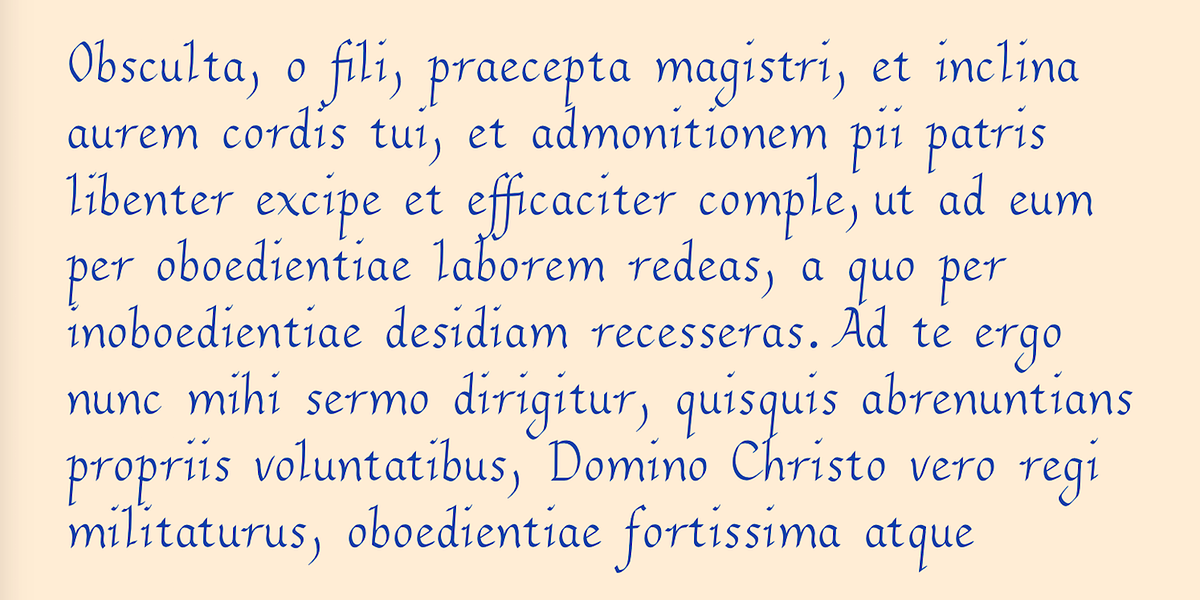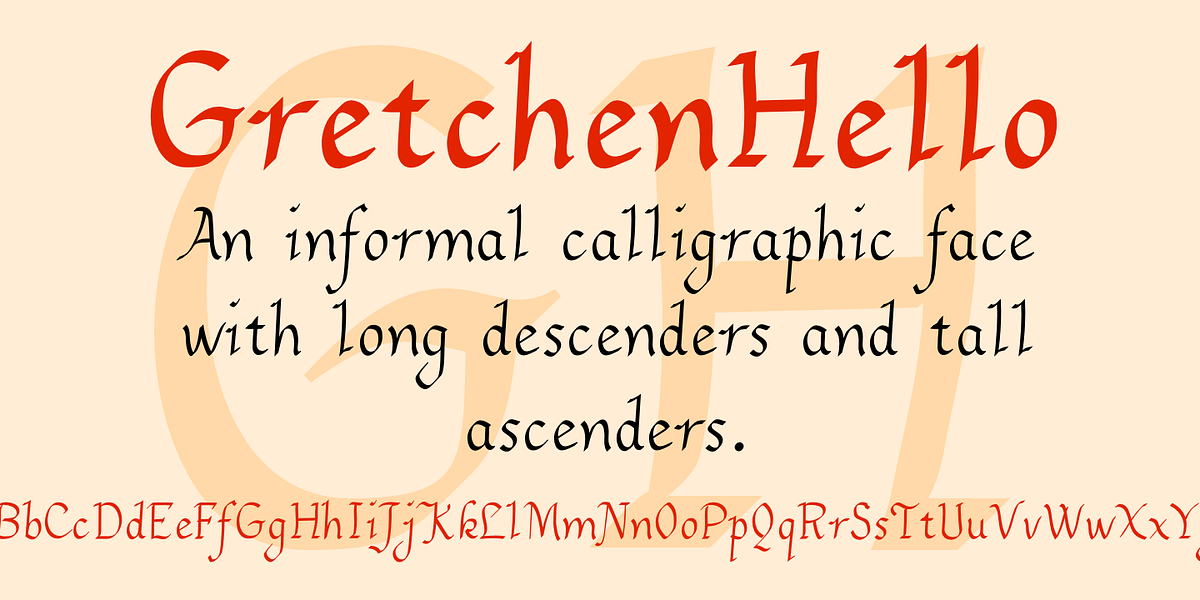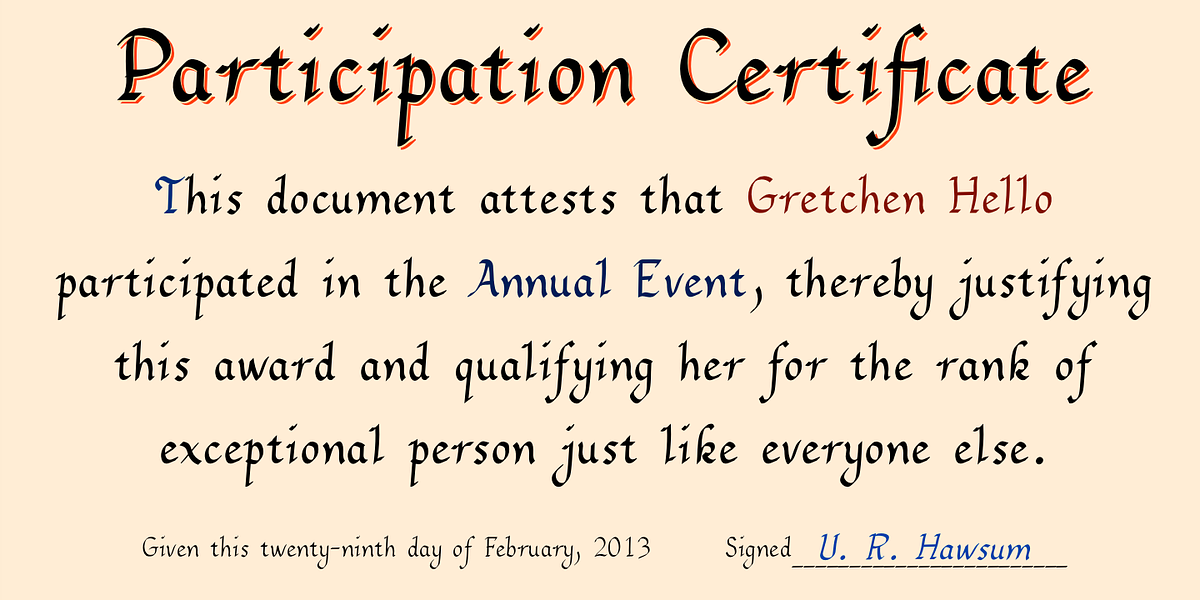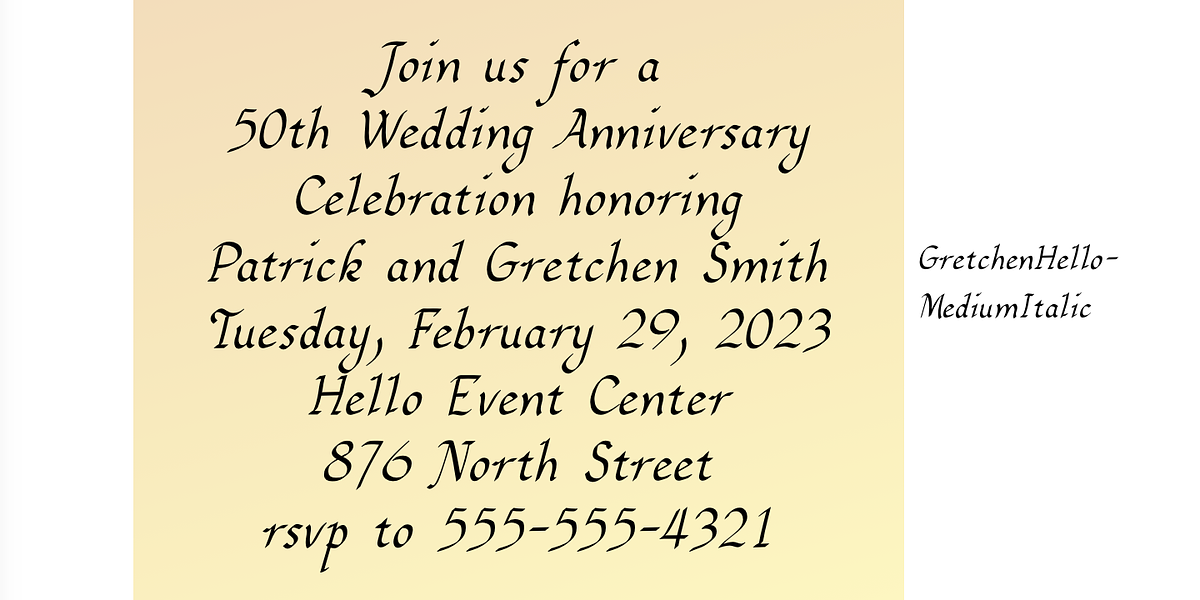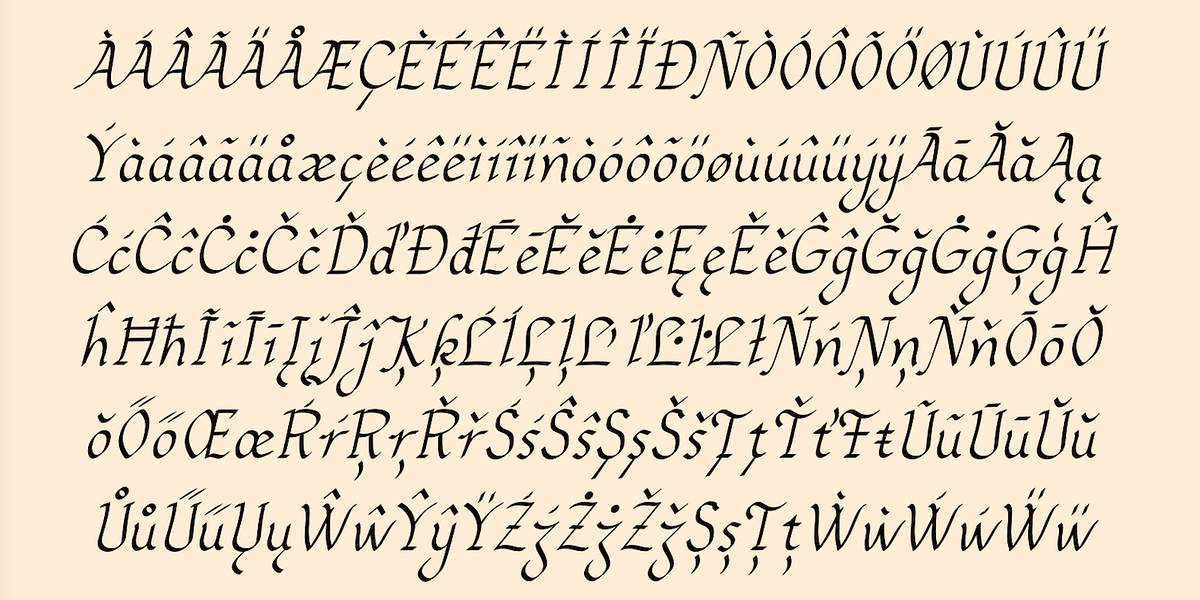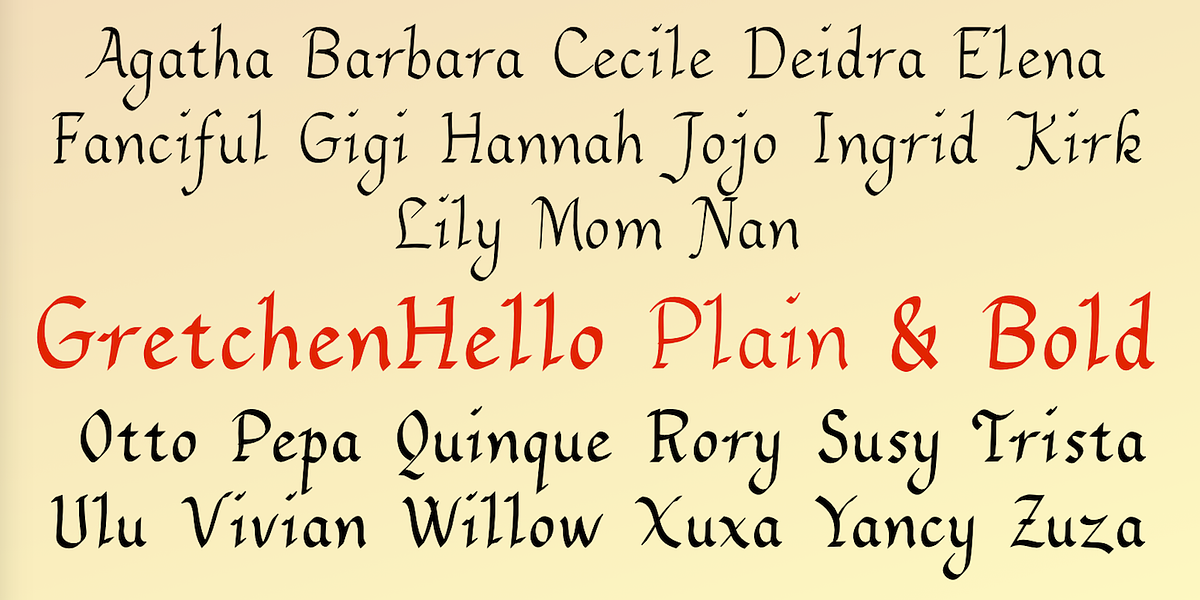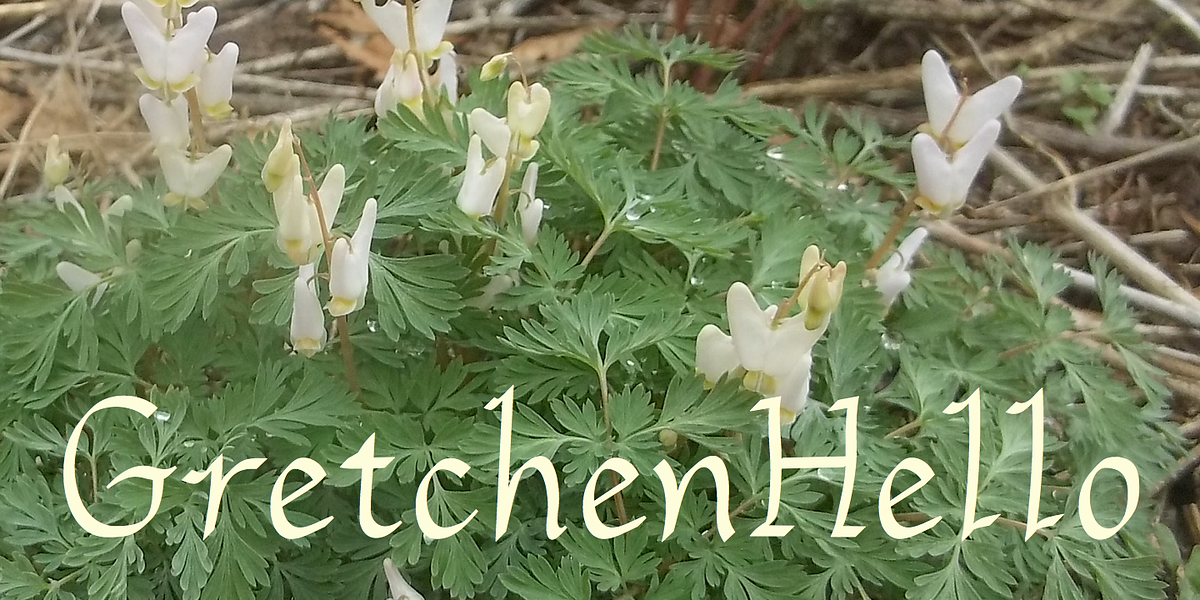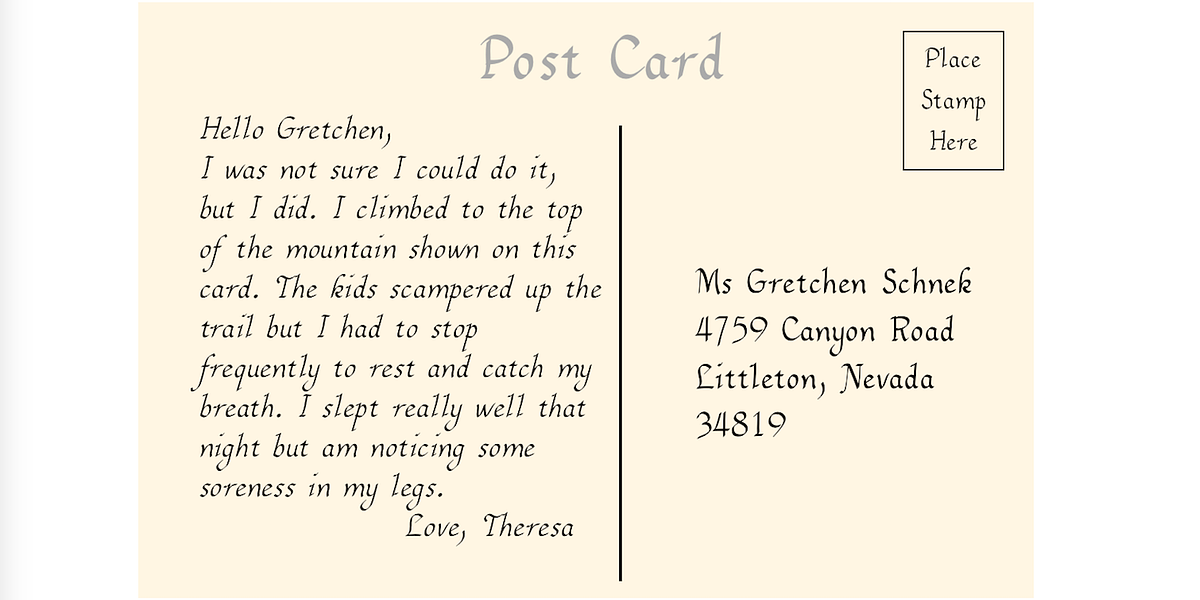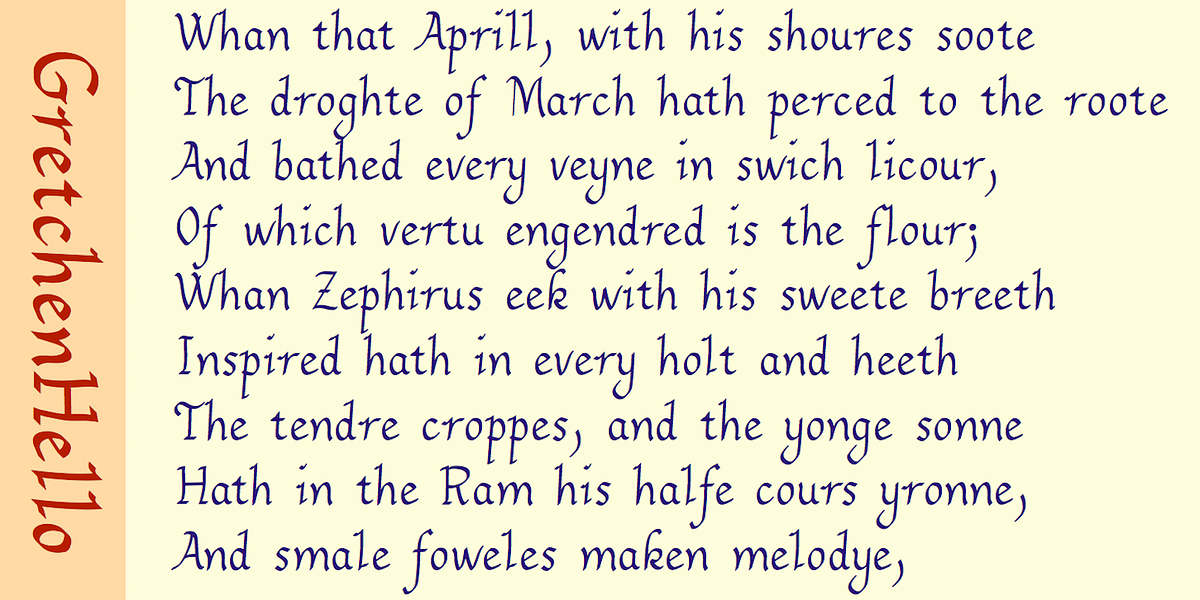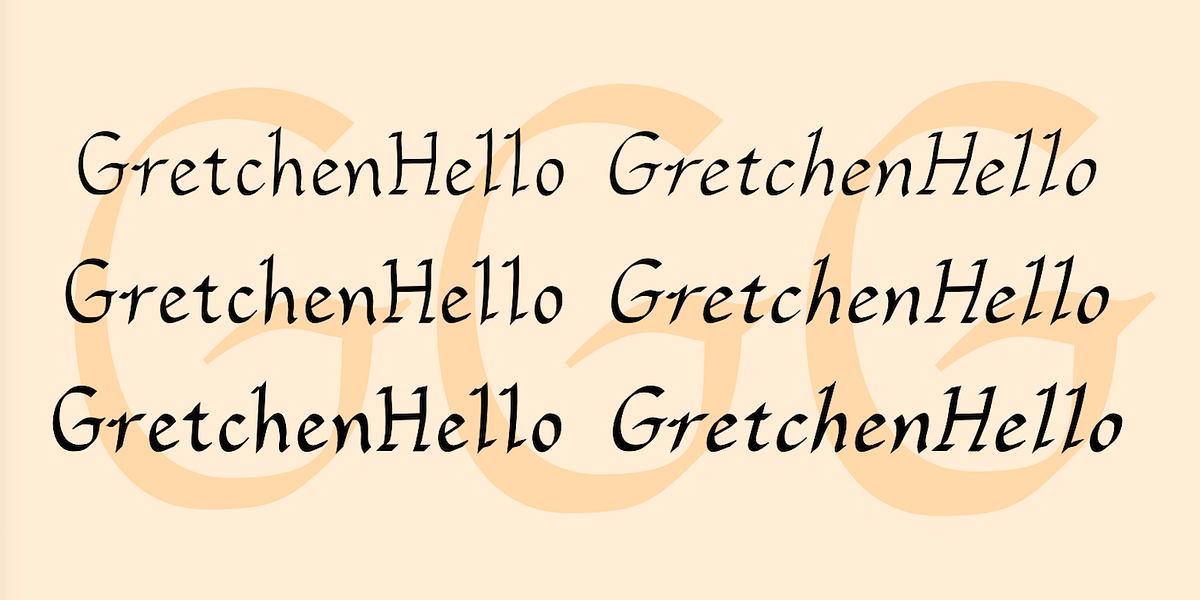
GretchenHello
GretchenHello is a calligraphic hand script font family. Its distinct characteristic is the elegant feel it achieves through tall ascenders and long descenders, mimicking the look of handwriting done with a calligraphic pen. The typeface comes in three weights, each accompanied by italics.